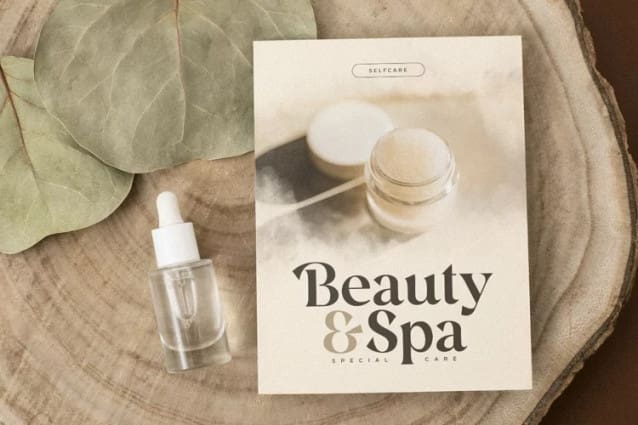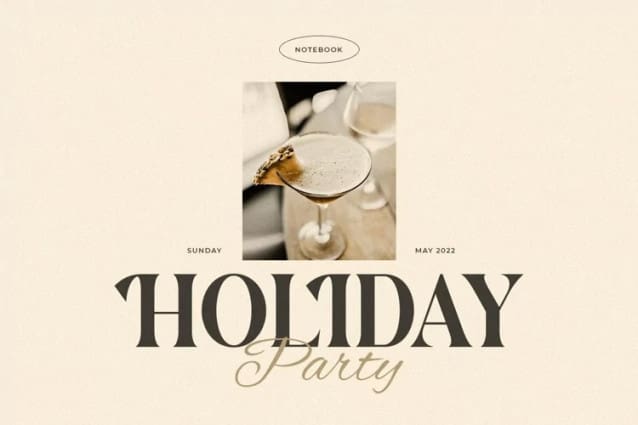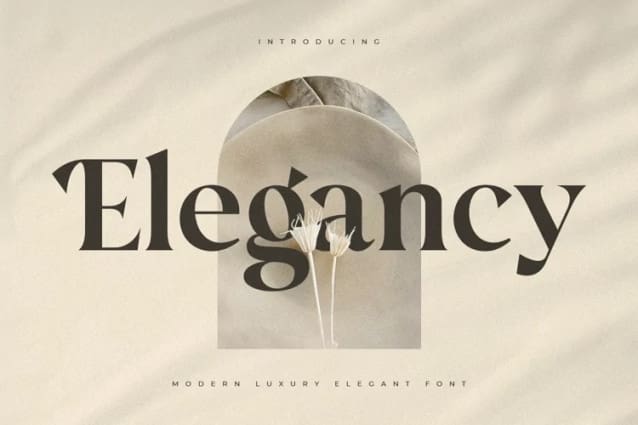
Elegancy Font
Elegancy Font, An Elegant Serif font that we created special for elegant branding needs, with extra ligatures in unique shape will be ready to add value of your brand. It so nice to leverage designer or product owner that need solutions to make their design look more classy and modern. And specially for this font, We prepared any ligatures characters to help you create unlimited variations for your creative needs.